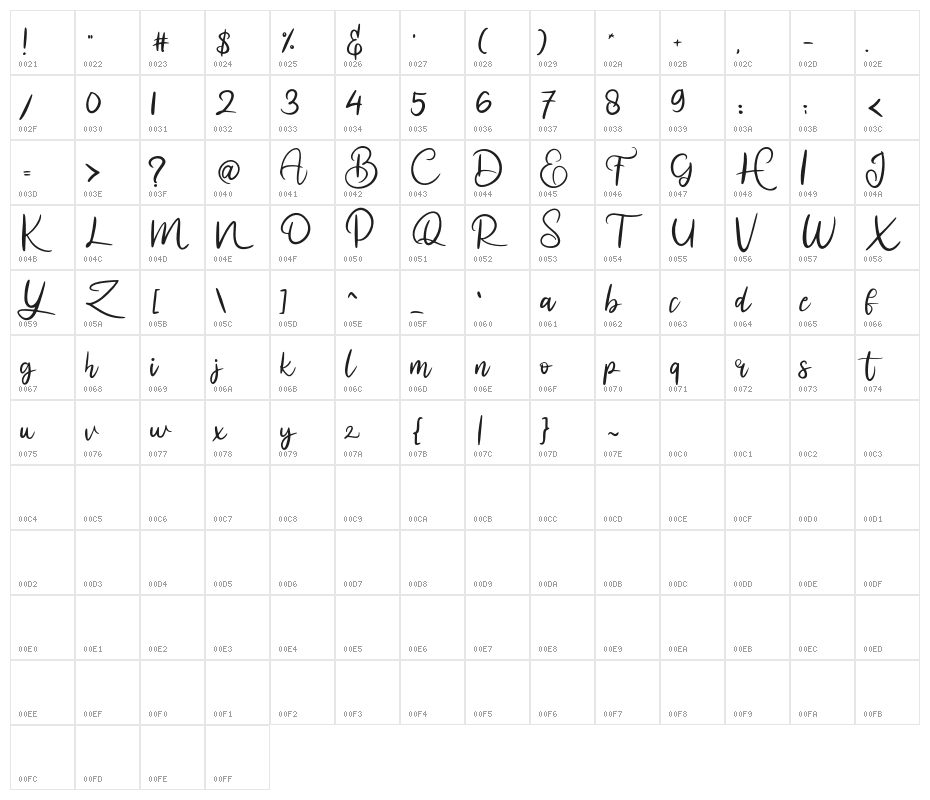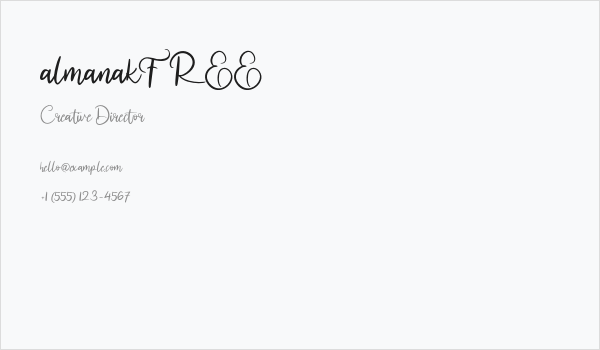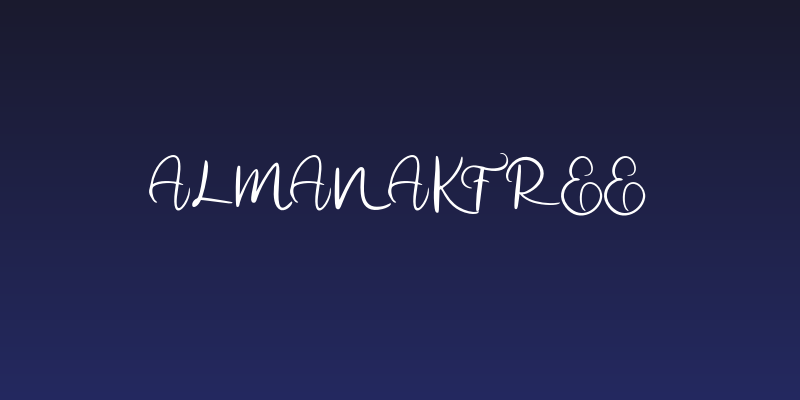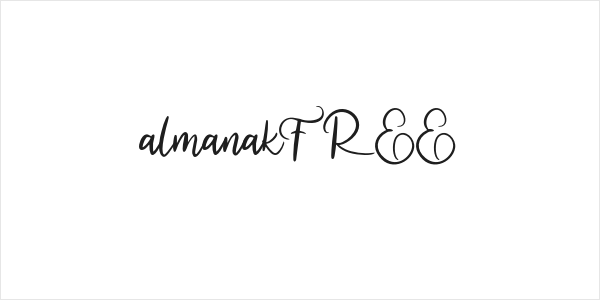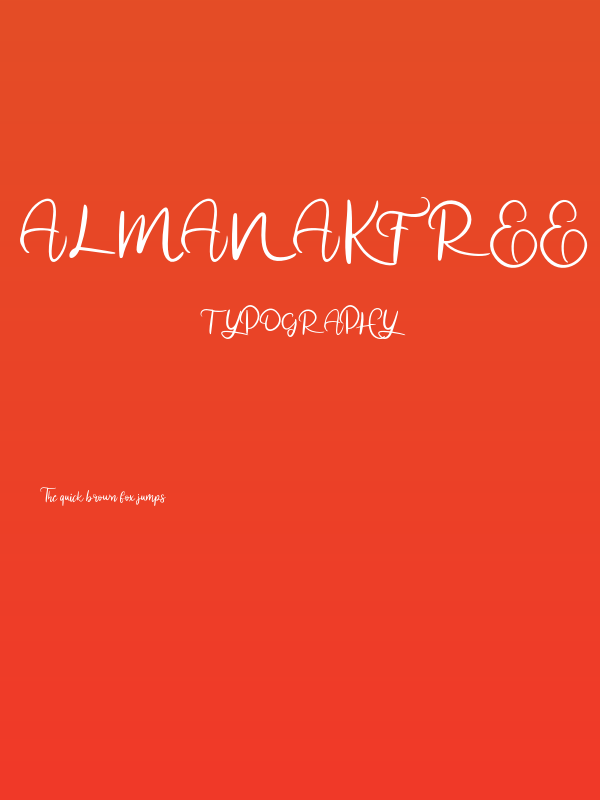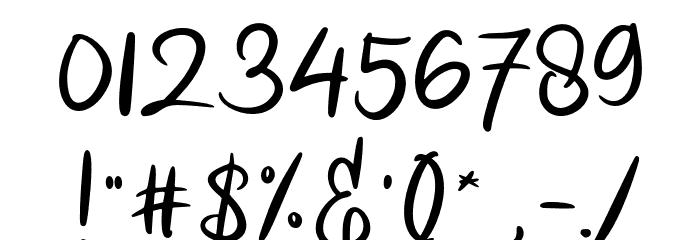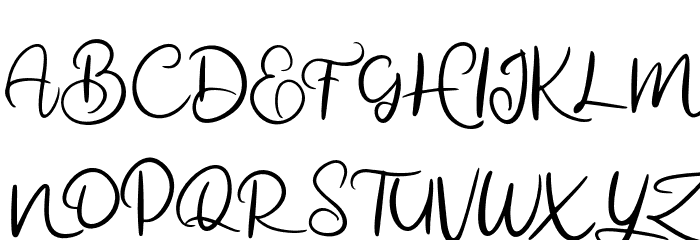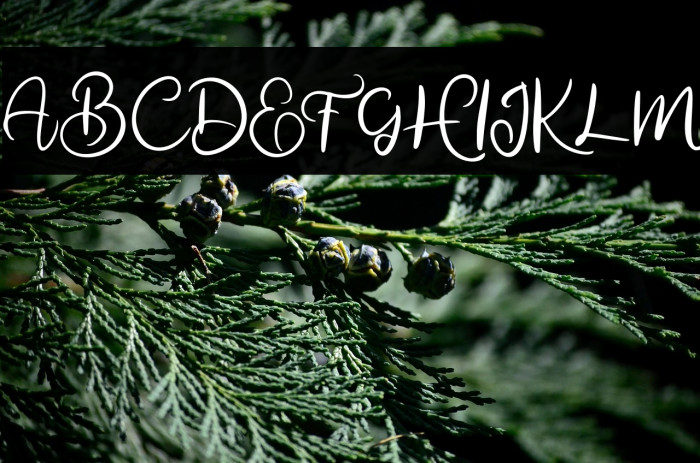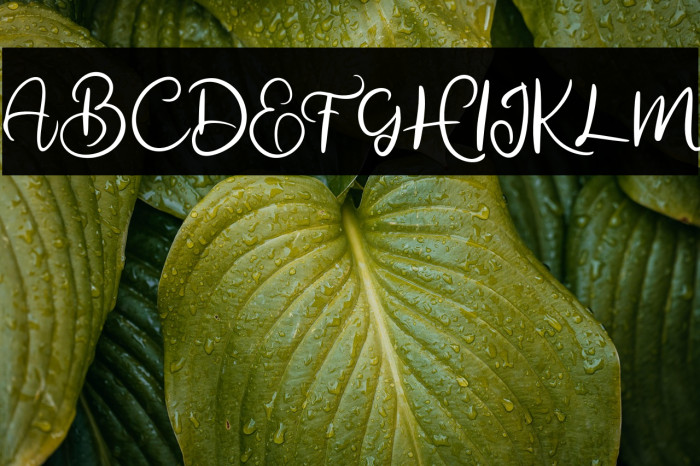
almanakFREE Font
almanakFREE Description
This font features a lively and flowing script style, characterized by its elegant and smooth curves. The uppercase letters exhibit a graceful, looping design, while the lowercase letters maintain a consistent fluidity, enhancing its handwritten appeal. The numerals and special characters are crafted with the same attention to detail, ensuring a cohesive look throughout. This font's playful yet sophisticated nature makes it versatile for various creative applications.
| Proposed Projects | Ideal for wedding invitations, greeting cards, branding, and social media graphics. |